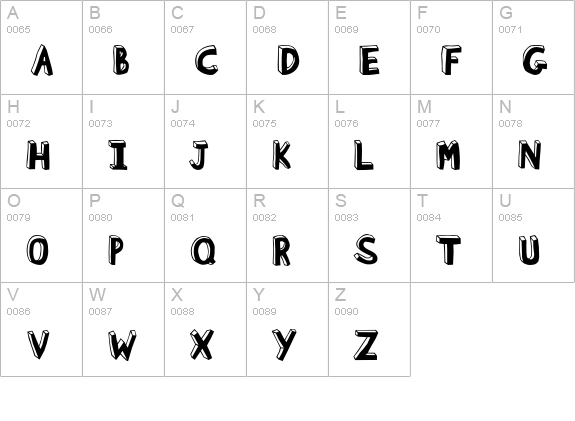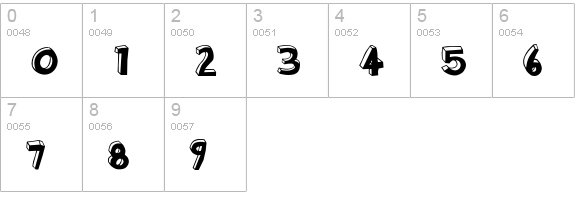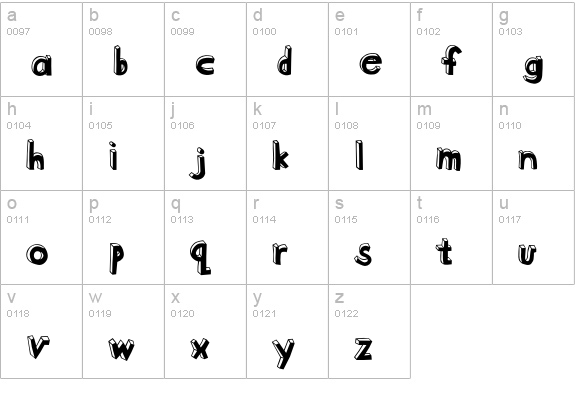
BlockheadBlackFace Font Details
BlockheadBlackFace is a bold and attention-grabbing display font that is perfect for creating impactful headlines, posters, and logos. With its strong, blocky design and distinct black face, this font demands attention and adds a touch of modernity to any project. Its sharp edges and thick strokes give it a powerful and commanding presence, making it the ideal choice for projects that require a bold statement. Best of all, BlockheadBlackFace is available for free download at FontsMarket.com. This means you can easily add this striking font to your collection without any cost, making it a valuable resource for designers, creatives, and anyone looking to make a strong visual impact. Download BlockheadBlackFace today and elevate your designs with its bold and eye-catching style.